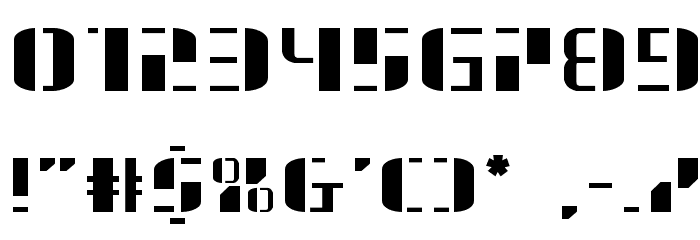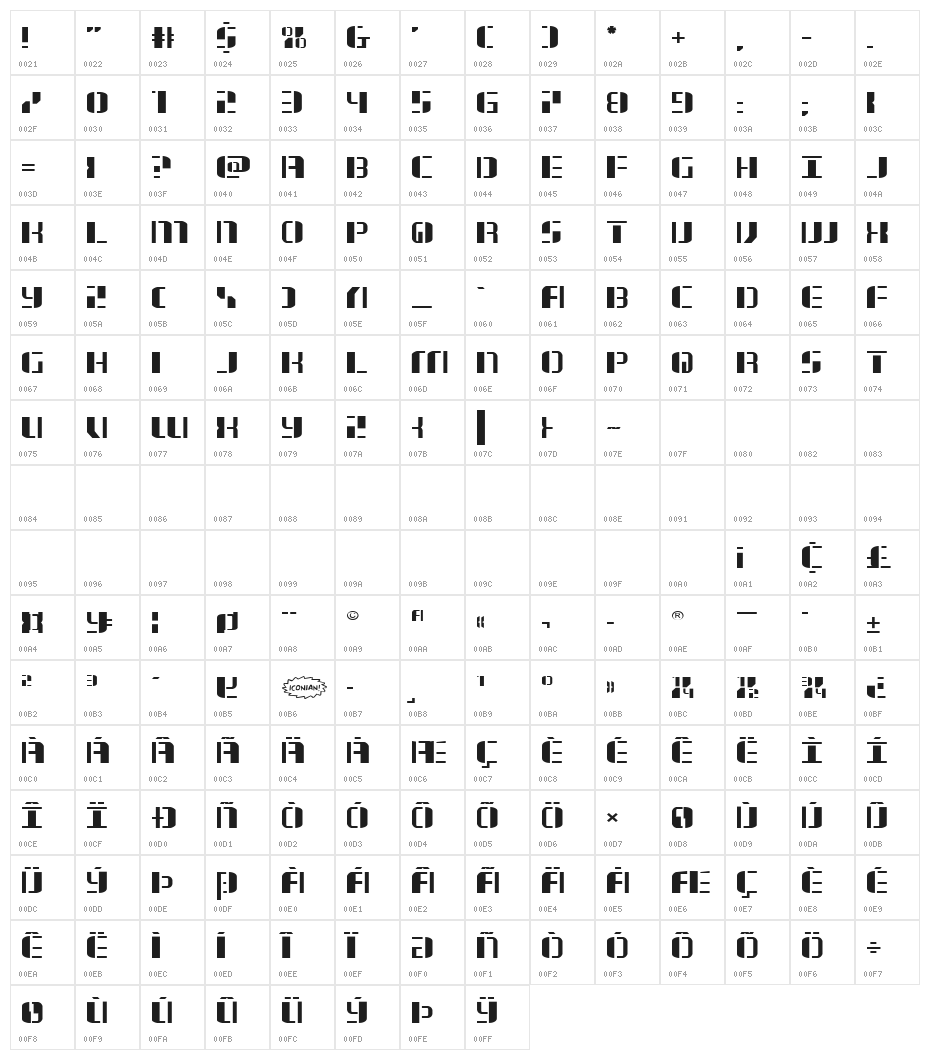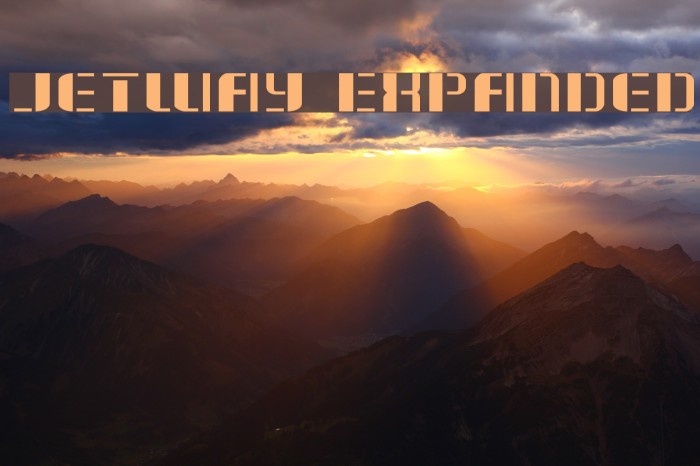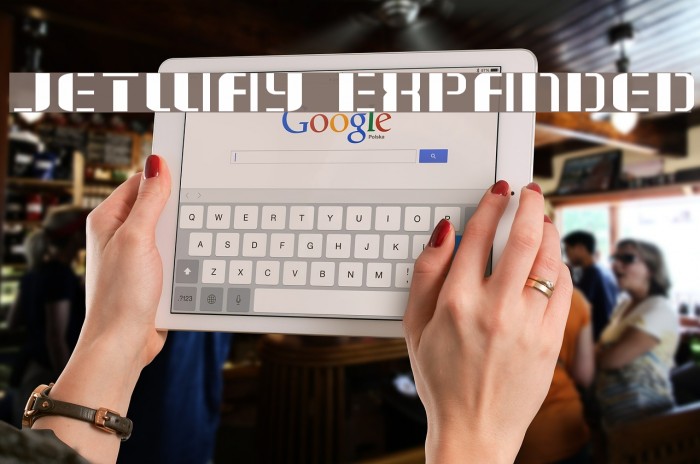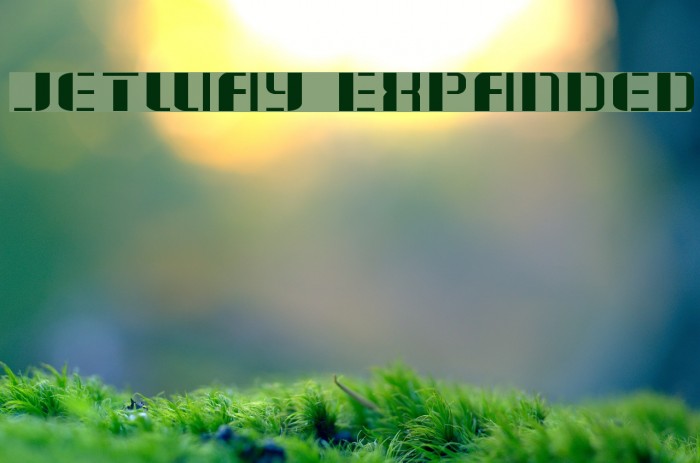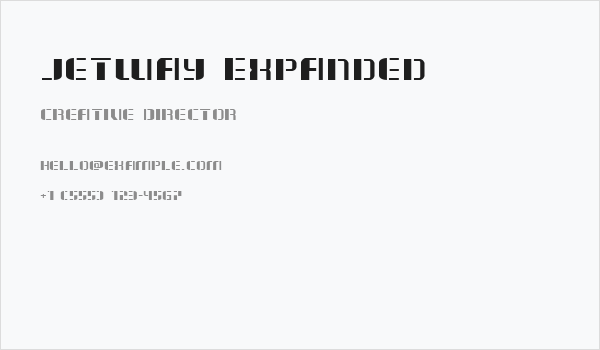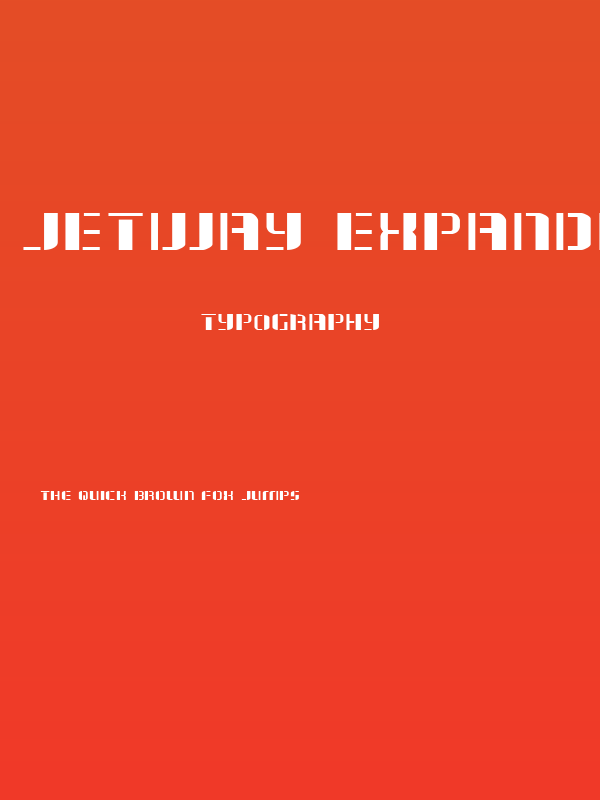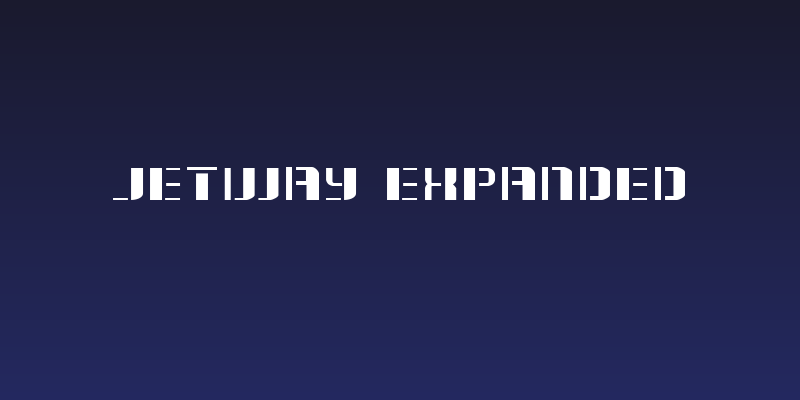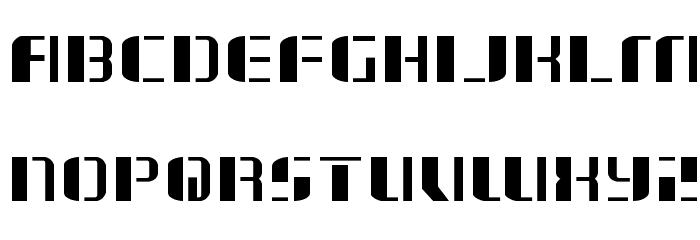
Jetway Expanded Font
Jetway Expanded Description
This font features a bold, geometric design with a distinctly modern and industrial feel. The characters are constructed with thick, blocky shapes that are partially segmented, creating a stencil-like appearance. This design choice gives the font a unique, futuristic look, reminiscent of digital displays or mechanical lettering. The uppercase and lowercase letters maintain a consistent style, with sharp angles and clean lines. The numerals and special characters follow the same design principles, ensuring a cohesive visual identity across all glyphs. The font's expanded width adds to its commanding presence, making it ideal for attention-grabbing headlines or impactful branding.
| Proposed Projects | Ideal for branding, posters, digital displays, and futuristic-themed designs. |